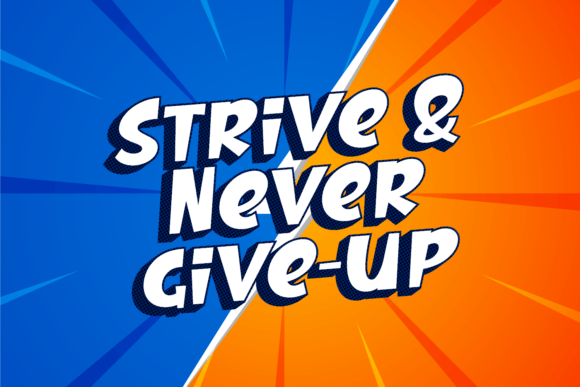
Introduction to Junior Hero Font
Remember the rush of excitement when you stumble upon a game-changing design resource? The thrill of knowing that it’s about to elevate your creative project to new heights? That’s exactly what happened when I discovered the Junior Hero Font. This fun and playful comic-style display font is a game-changer for designers looking to add a touch of whimsy to their work.
With its high-quality design and transparent background, the Junior Hero Font is perfect for a wide range of projects, from book covers to advertising materials. Whether you’re a seasoned designer or just starting out, this versatile font is sure to become a valuable addition to your design arsenal. And the best part? It’s available for free download, making it an accessible and affordable resource for creatives of all levels.
So, what makes the Junior Hero Font so special? Let’s dive in and explore its unique features and applications, and discover why it’s an essential tool for designers looking to create outstanding typography designs.
Key Features of Junior Hero Font
- High-quality design resource for creative projects
- Junior Hero Font comes in 6 unique styles, including bold and italic variations
- Features a transparent background, making it perfect for use on any background
Honest Review: Junior Hero Font
As a designer, I’m always on the lookout for new and exciting design resources to elevate my creative projects. The Junior Hero Font caught my eye, and I was excited to dive in and see what it had to offer. After some testing, here’s my honest review.
- ✨ High-quality design: The Junior Hero Font is incredibly well-designed, with clean lines, and a clear, readable font.
- ✨ Versatile: This font is perfect for a variety of creative projects, from logos and branding to web design and print materials.
- ⚠️ Limited character set: One thing I noticed was that the font’s character set is a bit limited, which may not be ideal for more complex design projects.
- ⚠️ No transparent background option: If you’re looking for a font with a transparent background, you may want to look elsewhere.
Overall, I’m impressed with the Junior Hero Font. While it may have some limitations, its high-quality design and versatility make it a valuable resource for designers. If you’re looking for a reliable and easy-to-use font, this is definitely worth checking out.
Getting the Most Out of Junior Hero Font
To get the most out of the Junior Hero Font, use it in combination with other design elements to create visually appealing graphics. Experiment with different font sizes, colors, and arrangements to find the perfect look for your creative project.